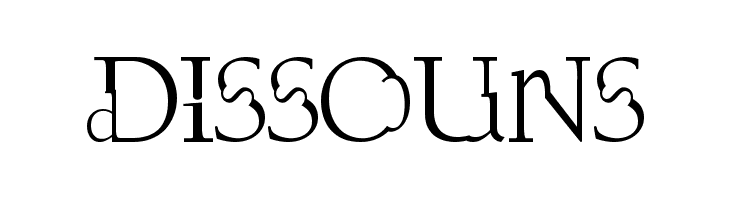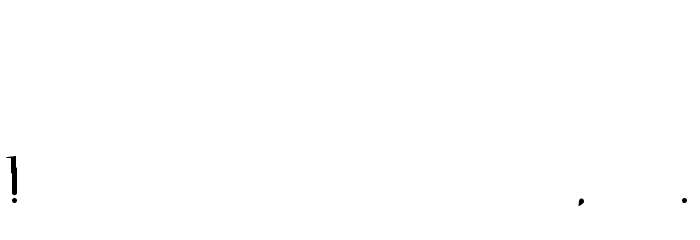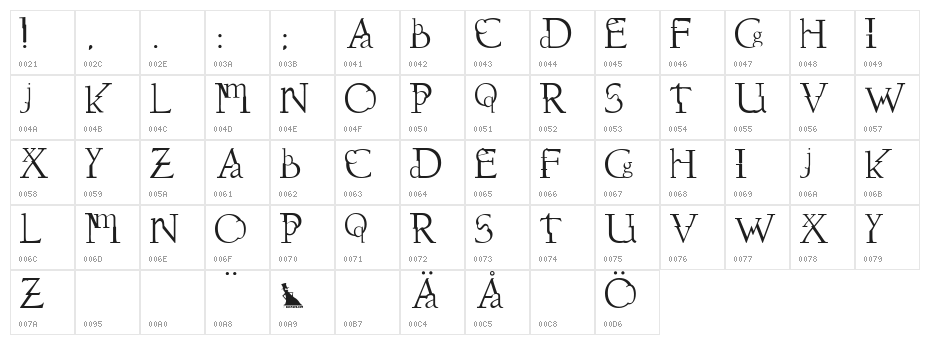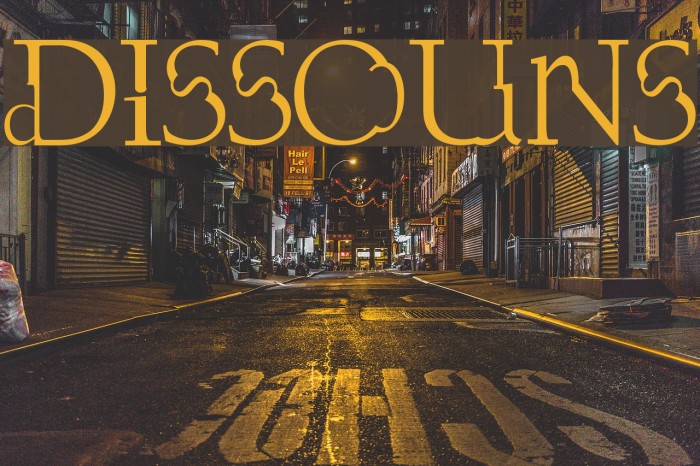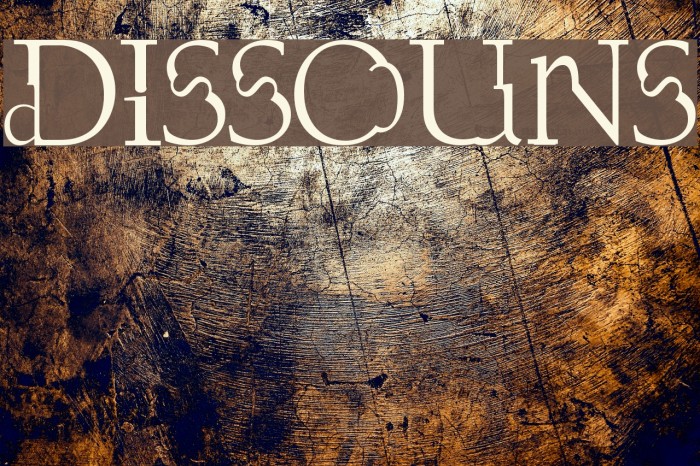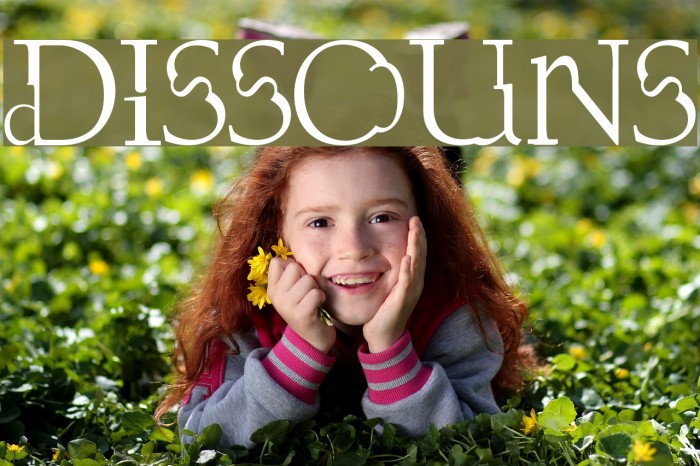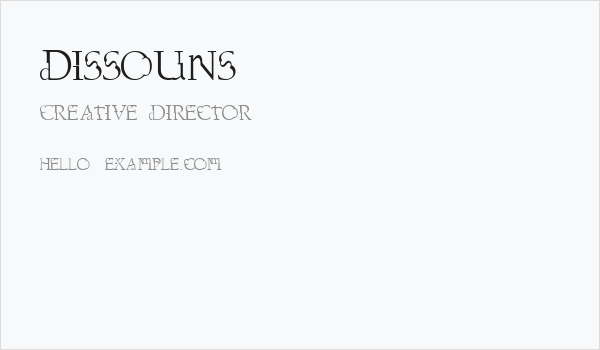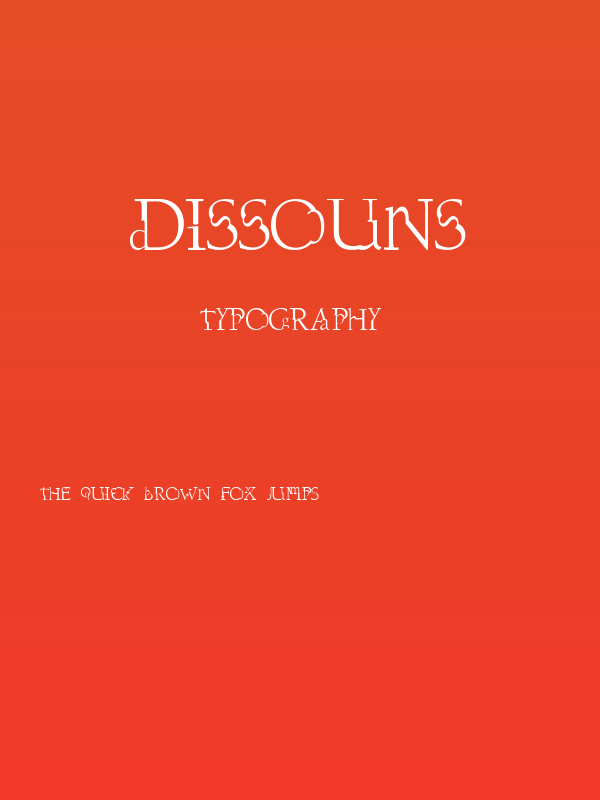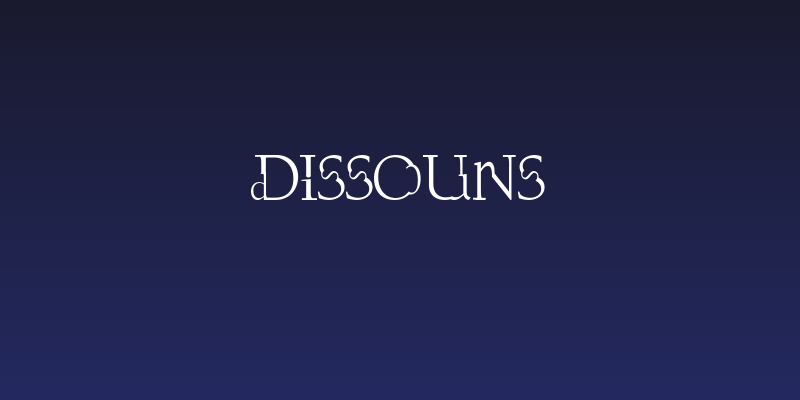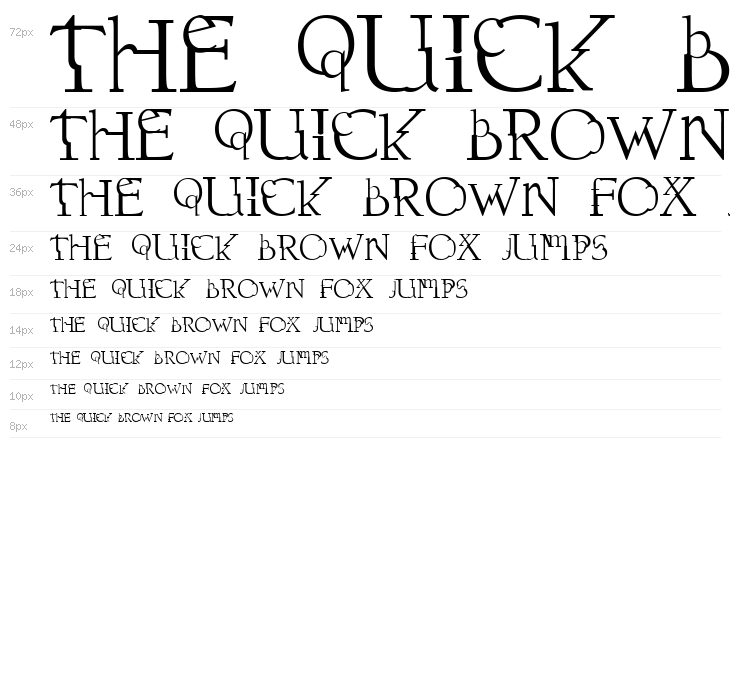
Dissouns Font
Dissouns Description
This font exhibits a unique and artistic style with a blend of classic and modern elements. The characters feature a distinct combination of thick and thin strokes, creating a high contrast that enhances readability while maintaining an elegant appearance. The uppercase letters are bold and commanding, while the lowercase letters offer a more delicate and intricate design. The special characters are crafted with the same attention to detail, ensuring consistency throughout the font. This typeface is perfect for projects that require a touch of sophistication and creativity.
Proposed ProjectsIdeal for branding, invitations, posters, and editorial design where a sophisticated and creative touch is desired.